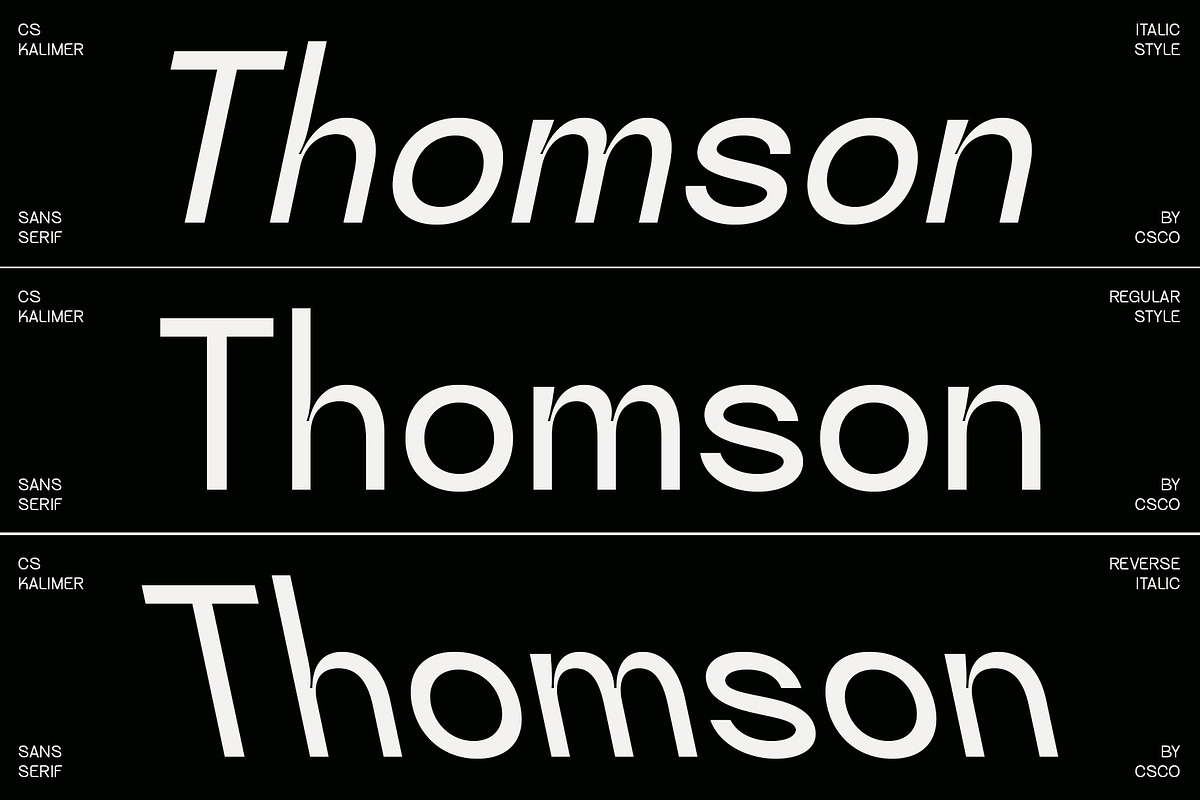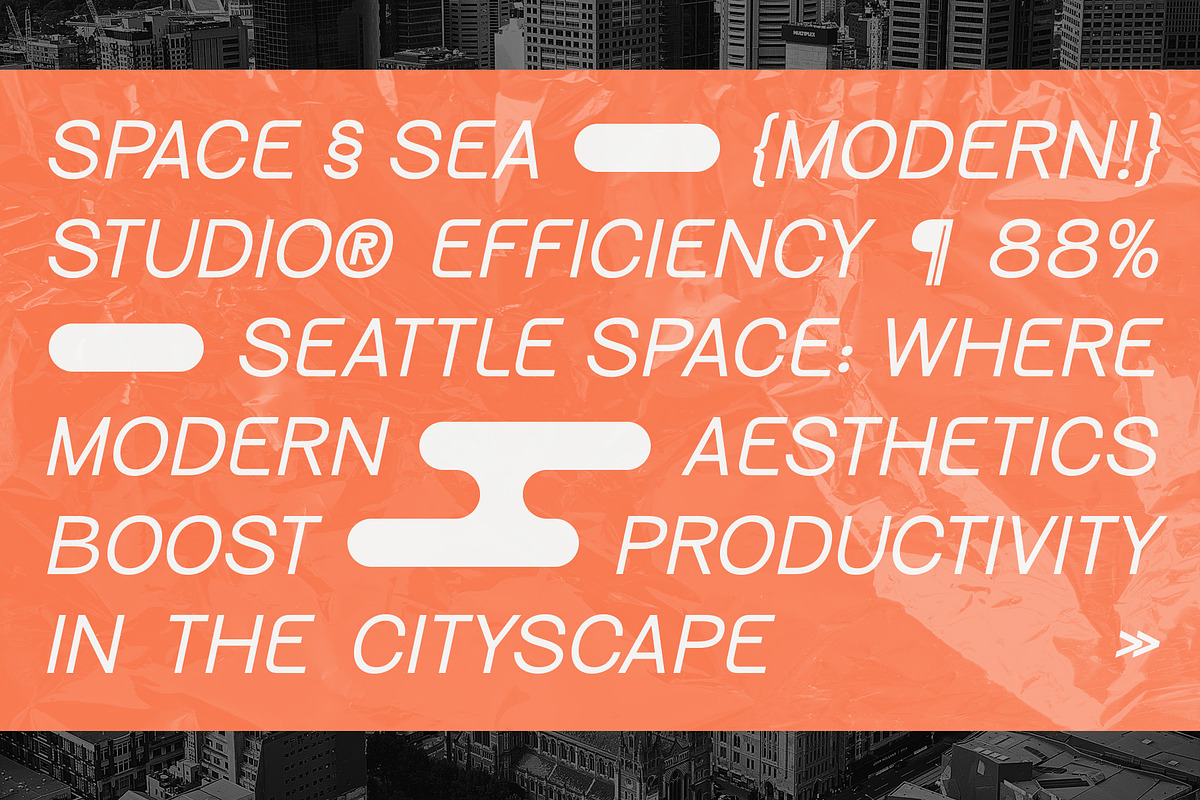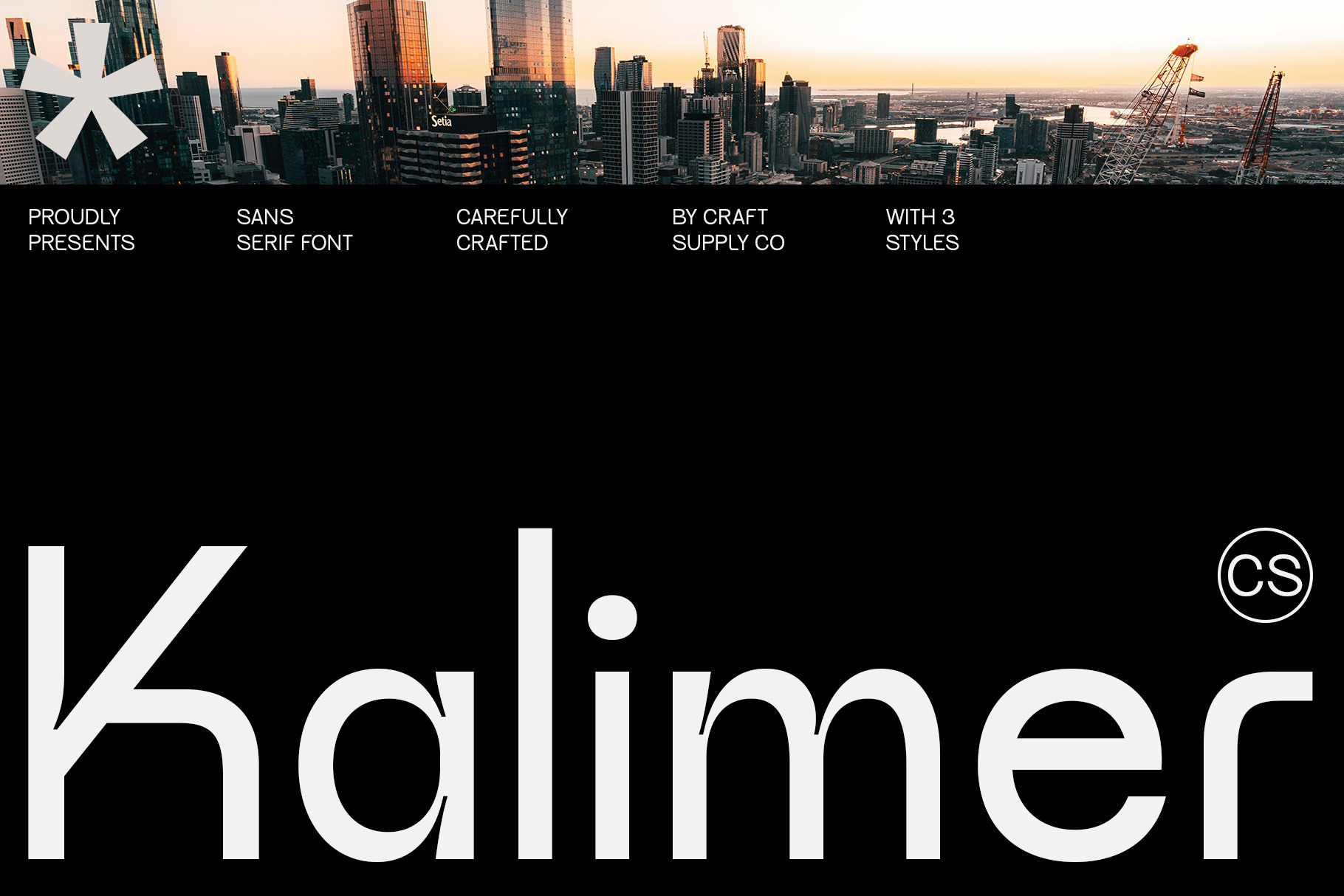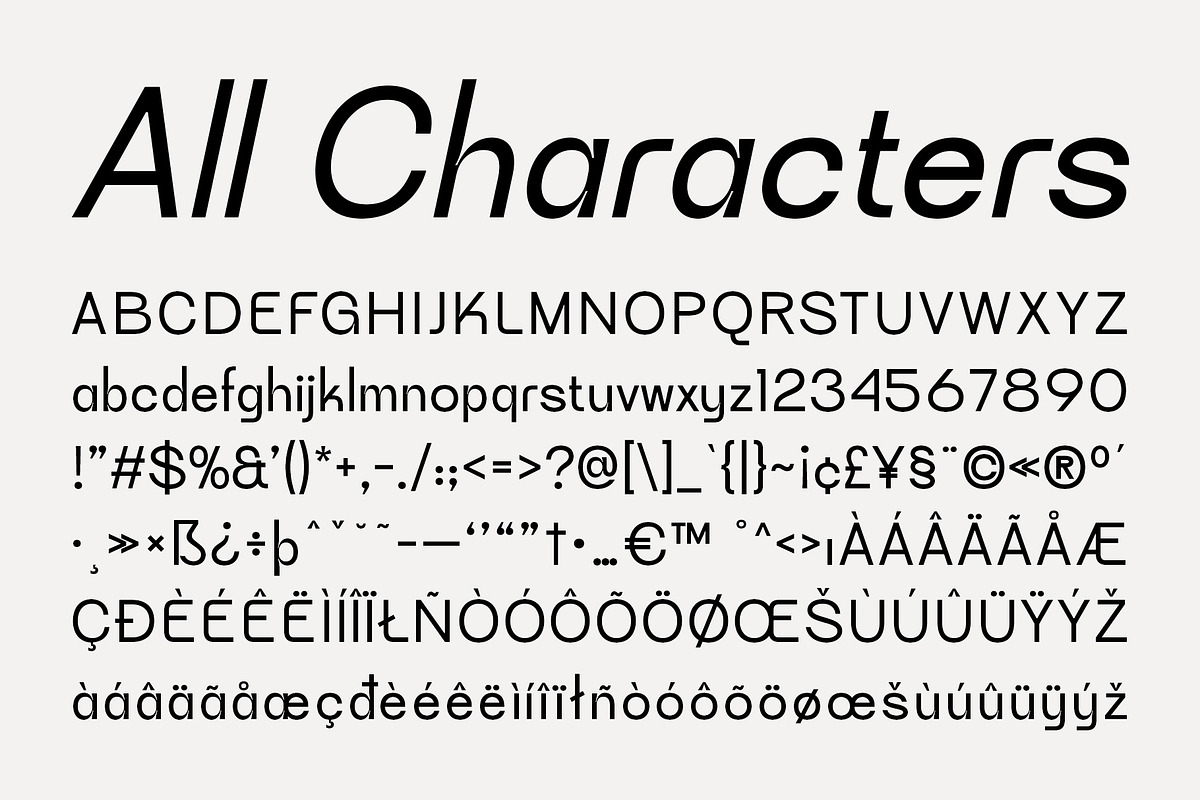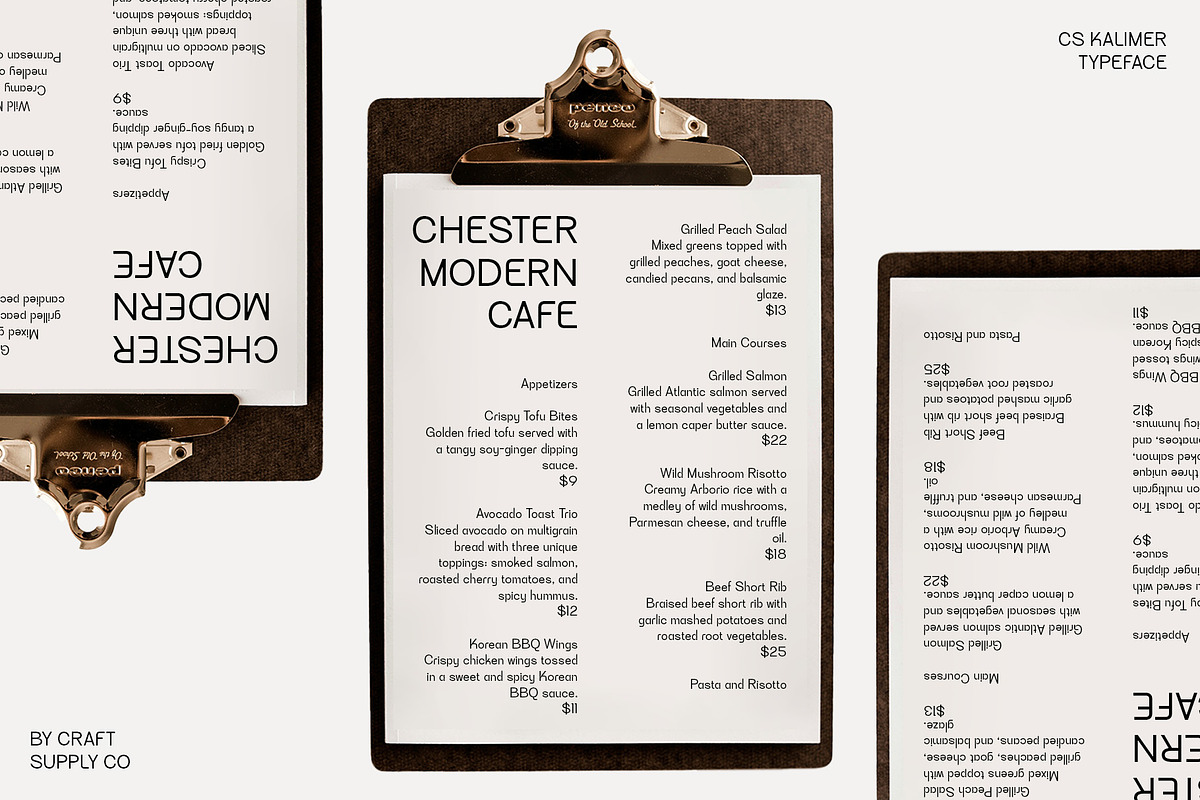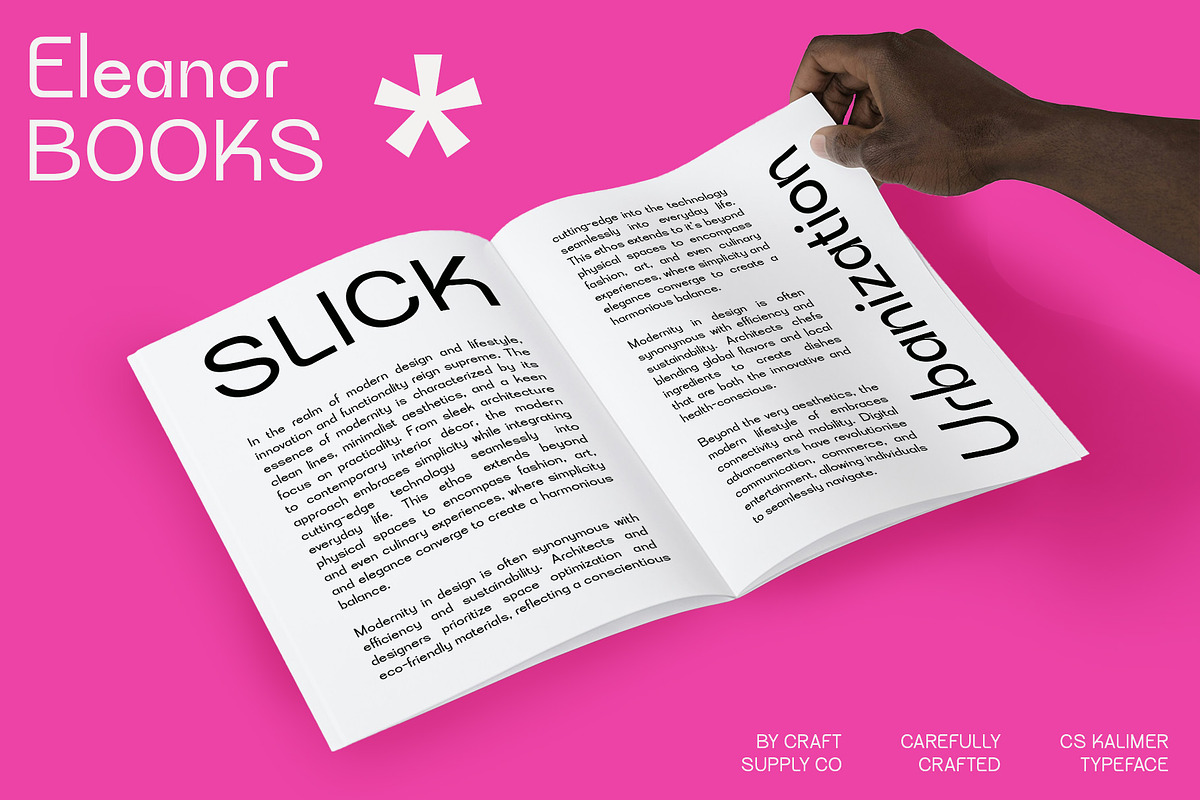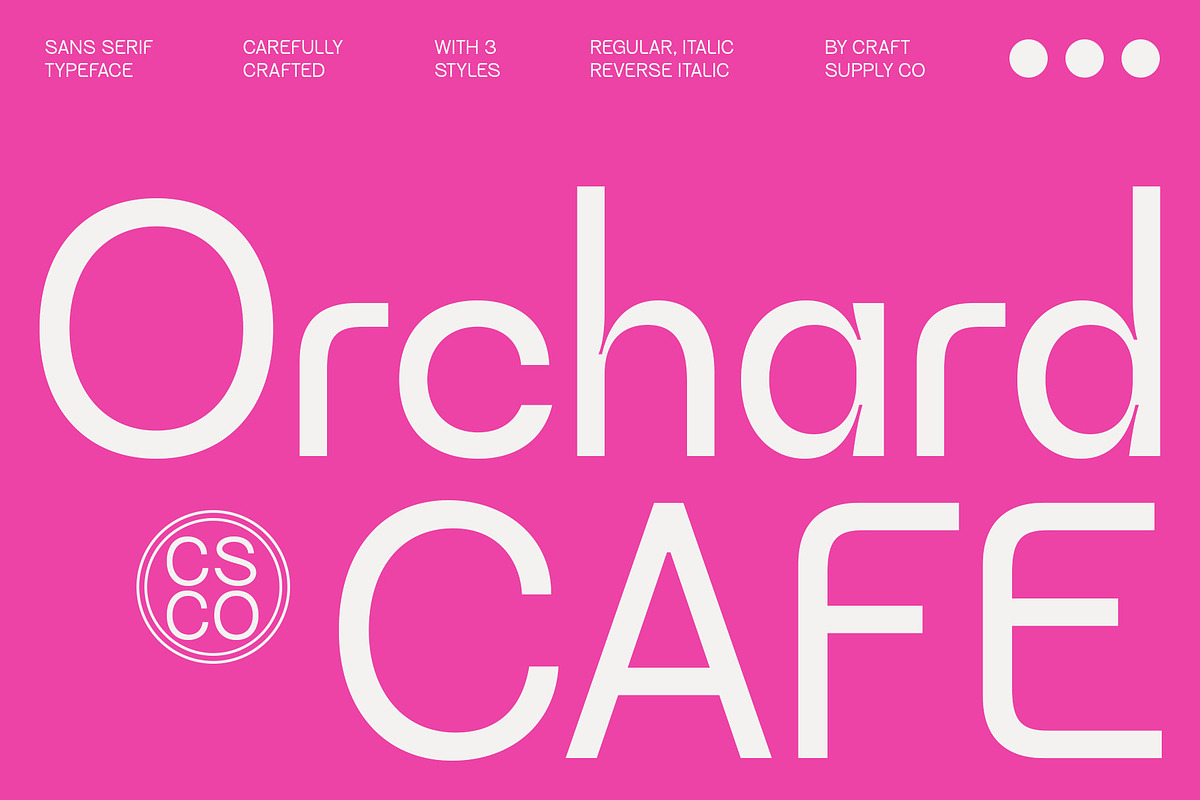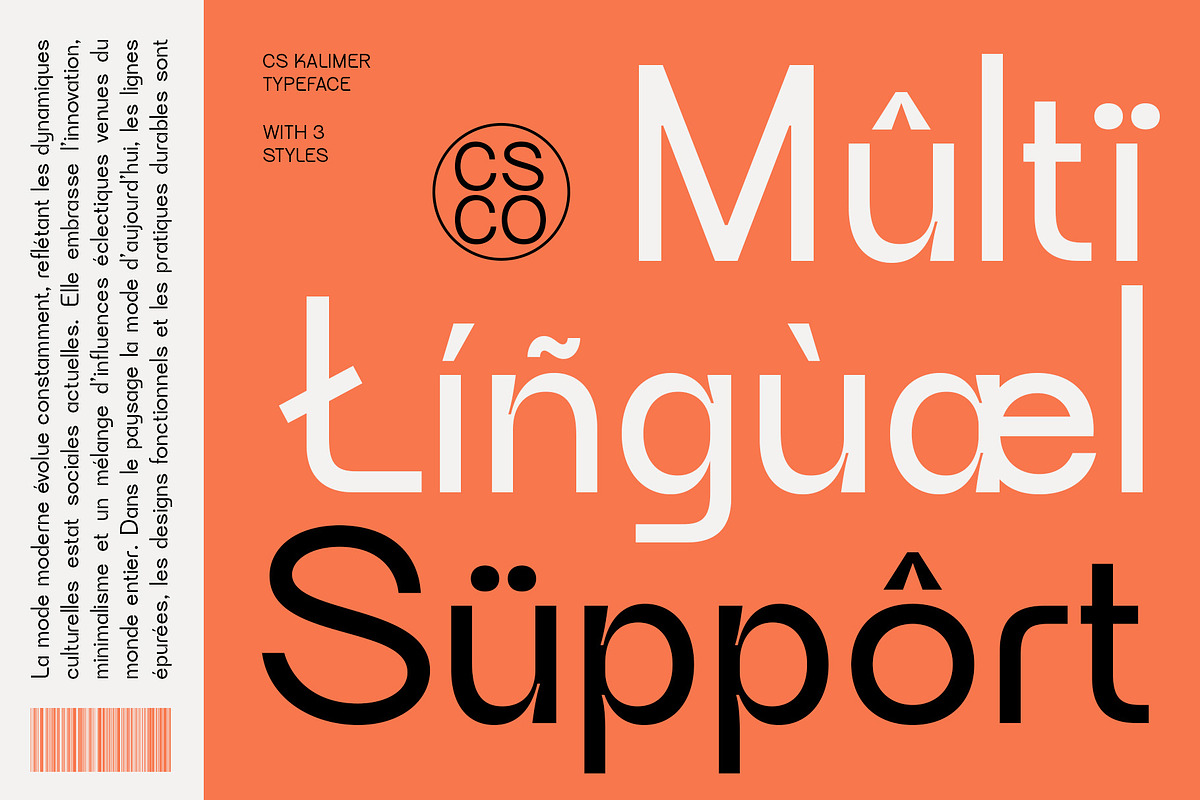
CS Kalimer – Sans Serif Font
CS Kalimer – Modern Sans Serif Font
Clean and Modern CS Kalimer is a sans-serif font that offers a clean, modern look. Its simple yet stylish design makes it suitable for various design needs that prioritize a clean, modern, and easy-to-read impression.
Ideal for Various Designs Perfect for web design, pamphlets, logos, and other projects, CS Kalimer ensures your message is clear and easy to read. Its modern sans-serif style makes it a versatile choice for a wide range of applications.
Versatile and Stylish Despite its simplicity, CS Kalimer remains versatile and stylish. Its sans-serif format makes it suitable for a wide range of projects where a font that is both modern and easy to read is essential for making a statement.
Perfect for Adding a Modern Touch CS Kalimer is ideal for projects requiring a font with a modern touch. Whether you’re designing a website, pamphlet, or logo, this font will undoubtedly add a distinct and memorable element to your designs.
- CS Kalimer Regular
- CS Kalimer Italic
- CS Kalimer ReverseItalic